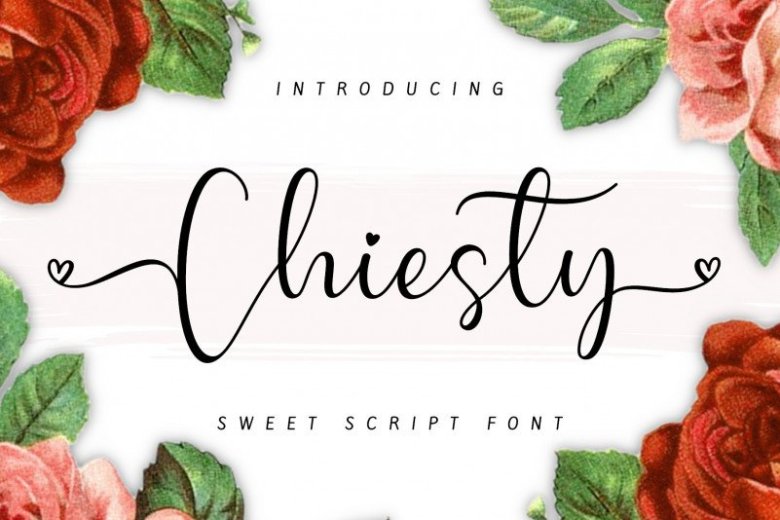
Chiesty Script Font
Introducing!!Chiesty is Modern Calligraphy. This font was designed by handwriting, and it has a modern and unique forms of calligraphy, the writing style is very natural.